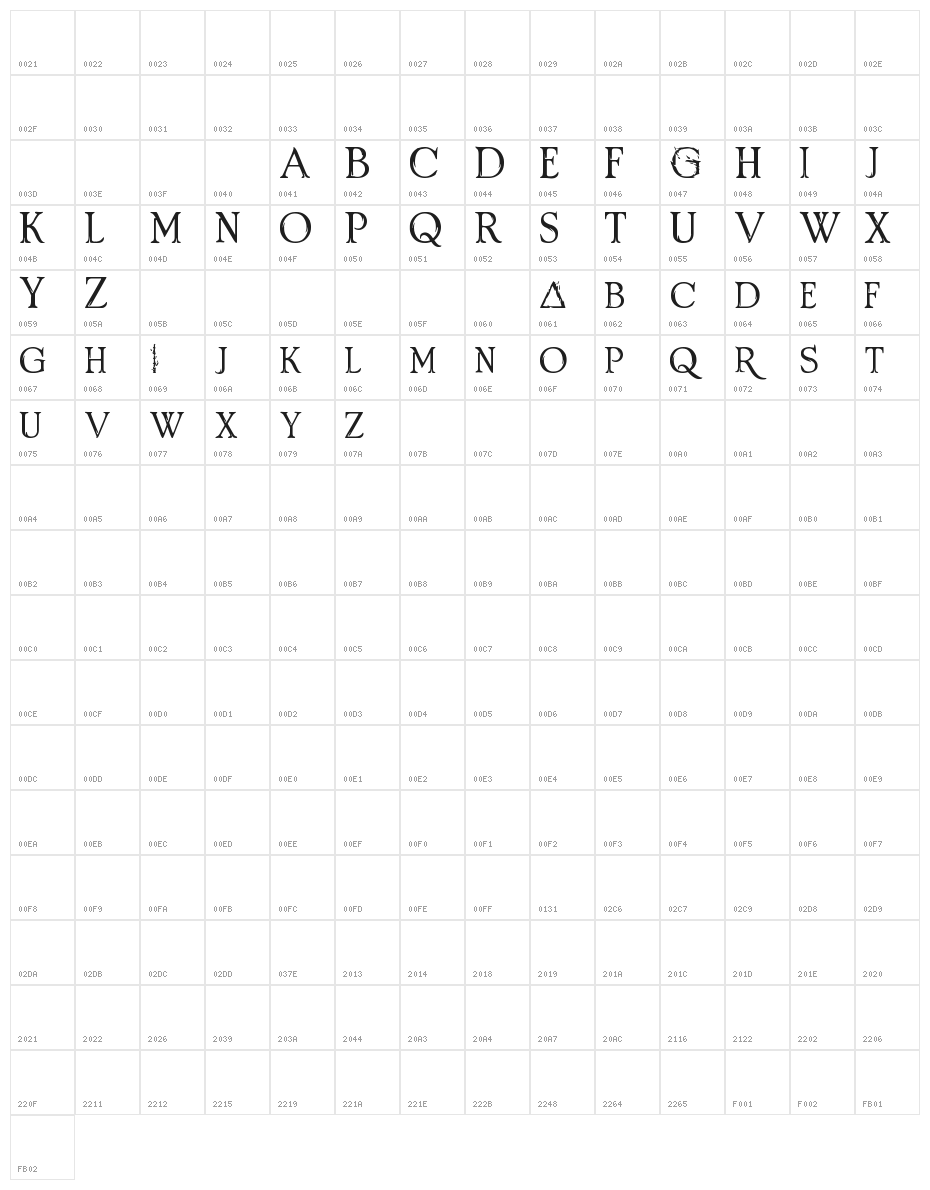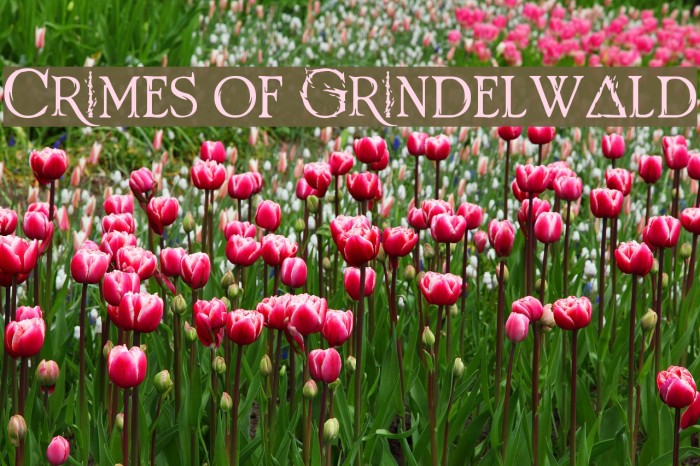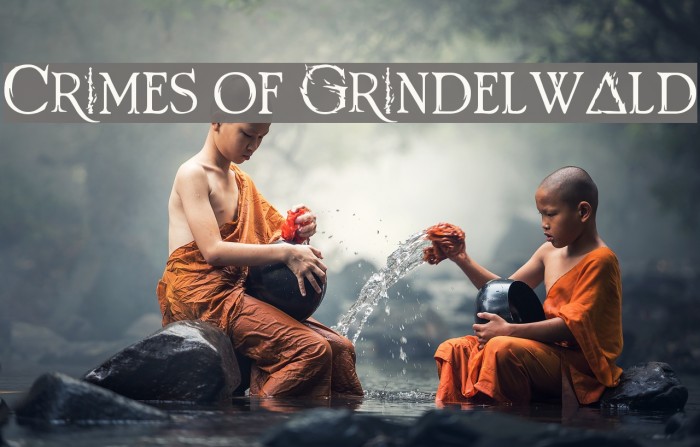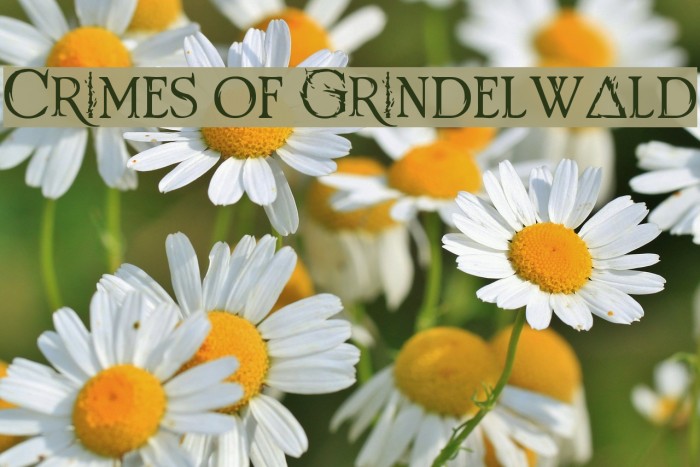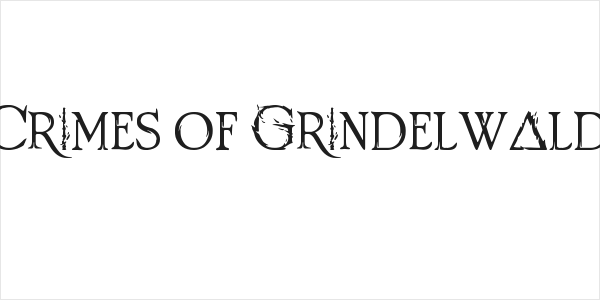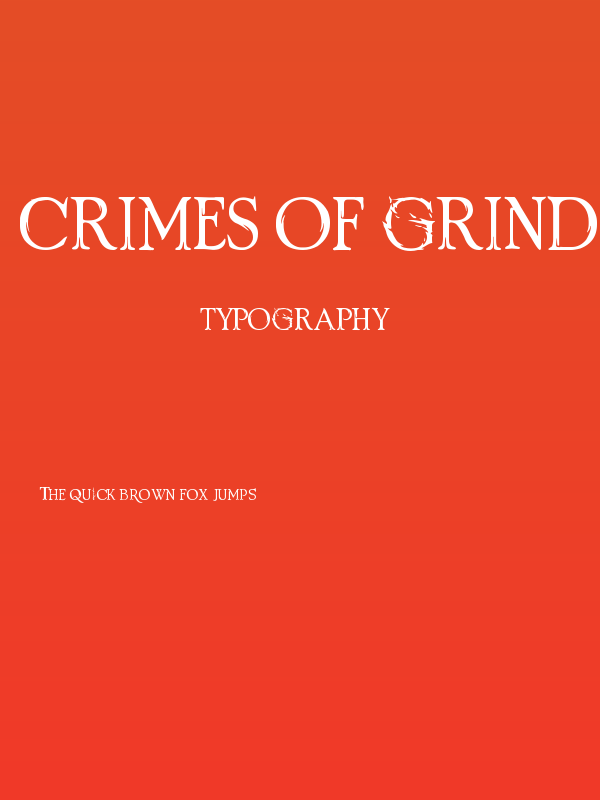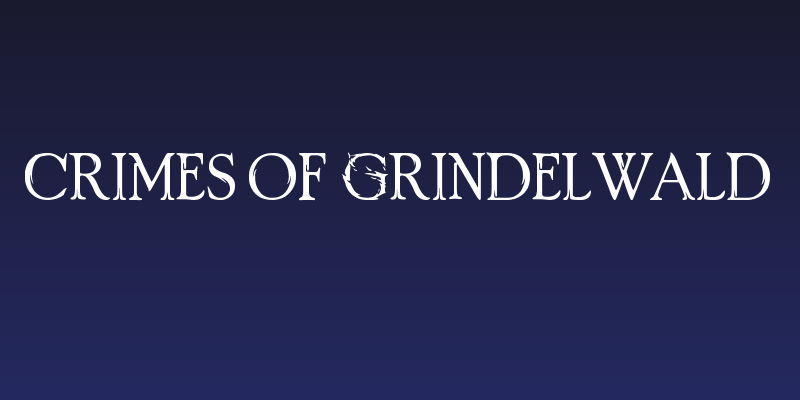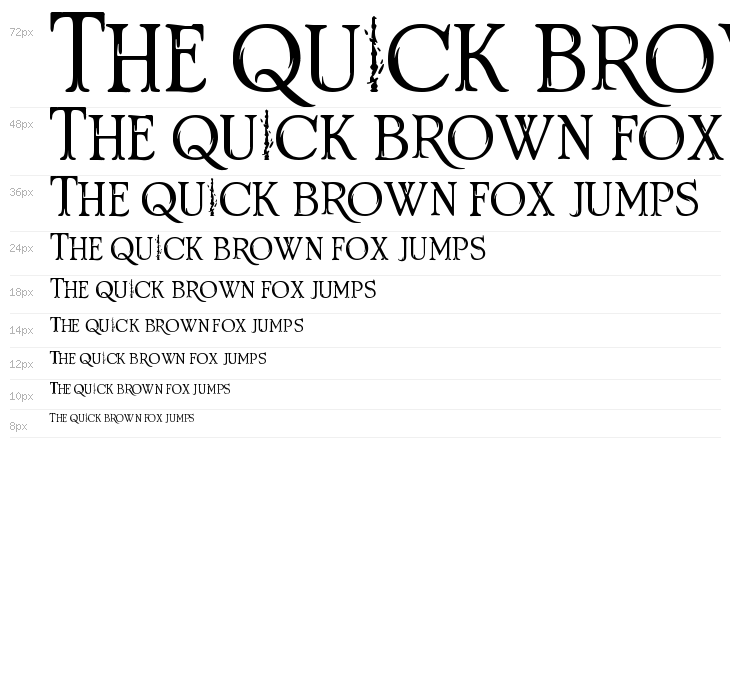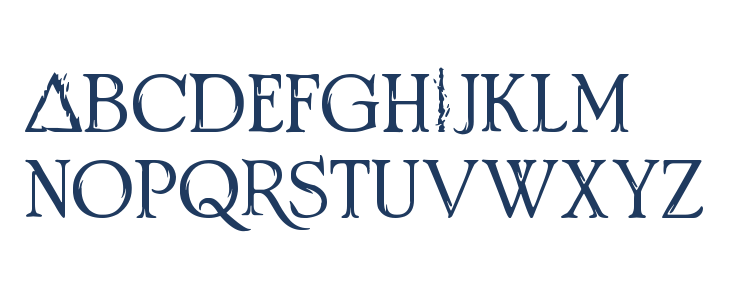
Crimes of Grindelwald Font
Crimes of Grindelwald Description
This font features a unique and dramatic style, characterized by its sharp, jagged edges and distressed appearance. The uppercase letters are bold and commanding, with an almost gothic flair that suggests mystery and intrigue. The strokes are uneven, giving the font a hand-crafted feel, while the overall design maintains a sense of elegance and sophistication. The font's distinct personality makes it ideal for projects that require a touch of fantasy or a dark, magical theme. Its intricate details and bold presence ensure it stands out in any design context.
| Overall Style | Gothic, Dramatic, Mysterious |
| Proposed Projects | Ideal for fantasy book covers, movie posters, themed event invitations, and branding for mystical or magical products. |